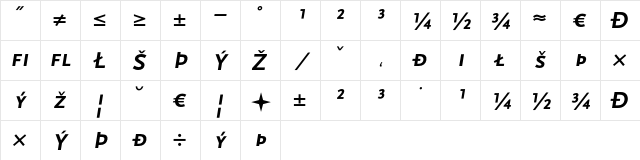
Scala Sans Bold Exp SC Italic
Design Context for Scala Sans Typeface
Scala Sans offers clean, dependable letterforms without strong stylistic allegiance, making it a practical choice for designers who need flexibility. The dynamic lean of this cut emphasises speed and emphasis in any layout. Its bold stroke weight gives it real presence on the page.
Pro Tip: Use Scala Sans for emphasis, pull quotes, and subheadings where its slanted energy can add rhythm to the layout.